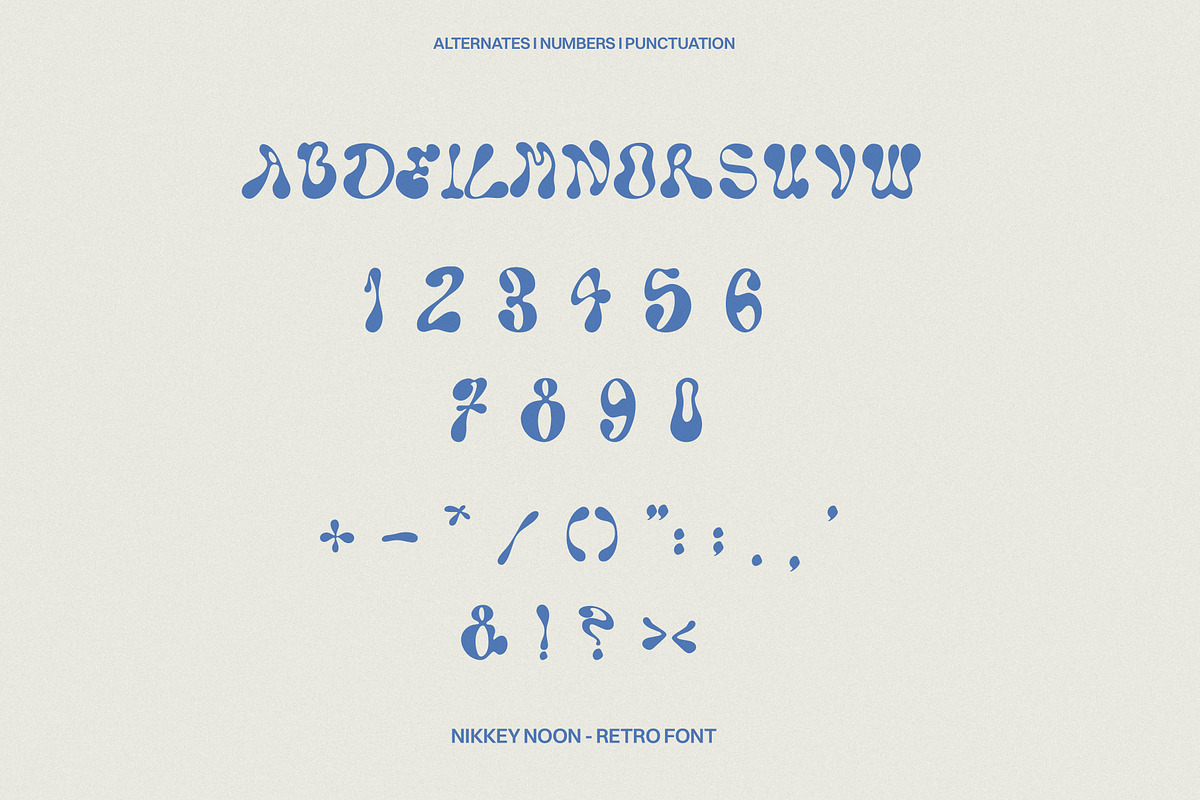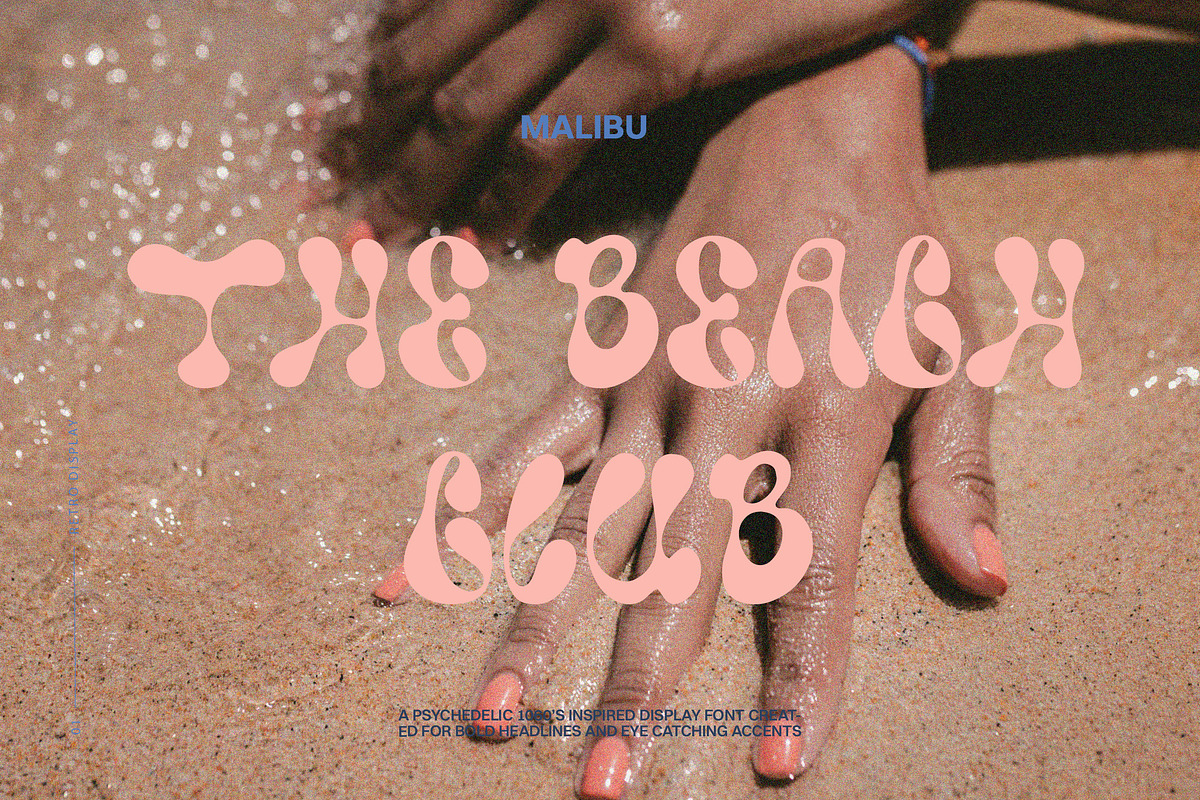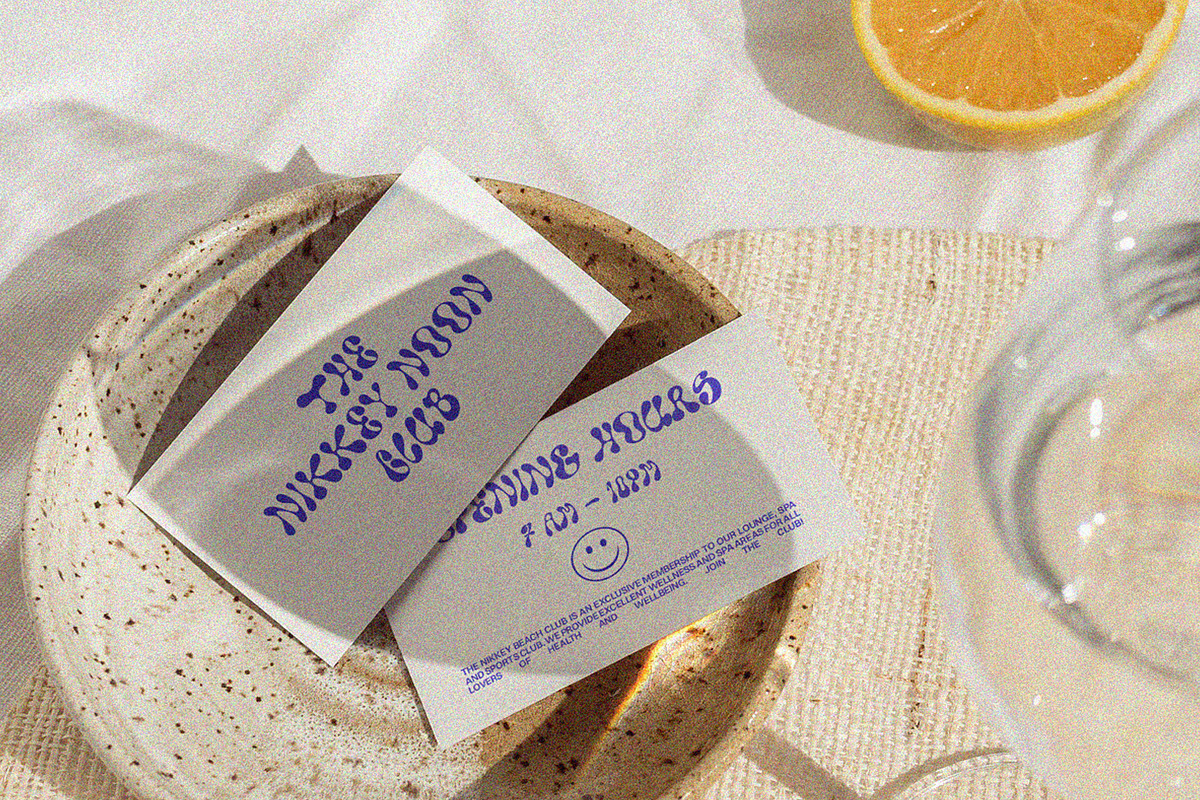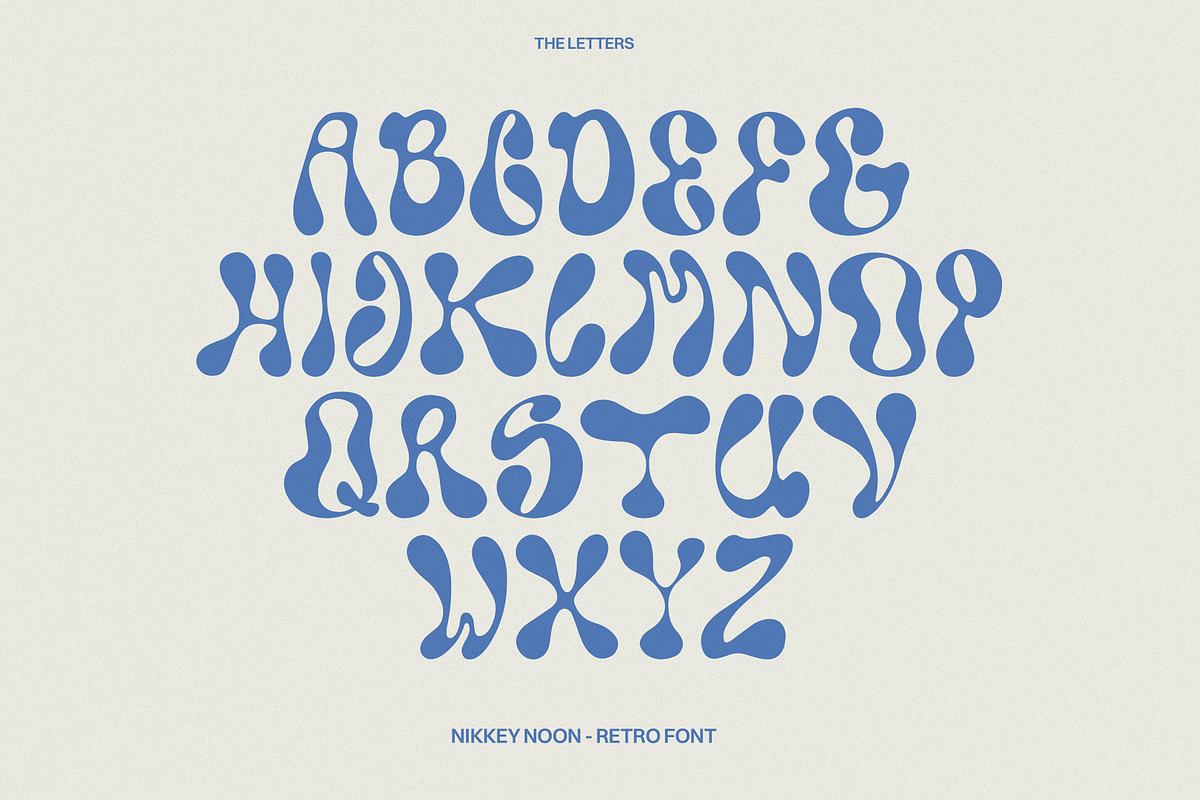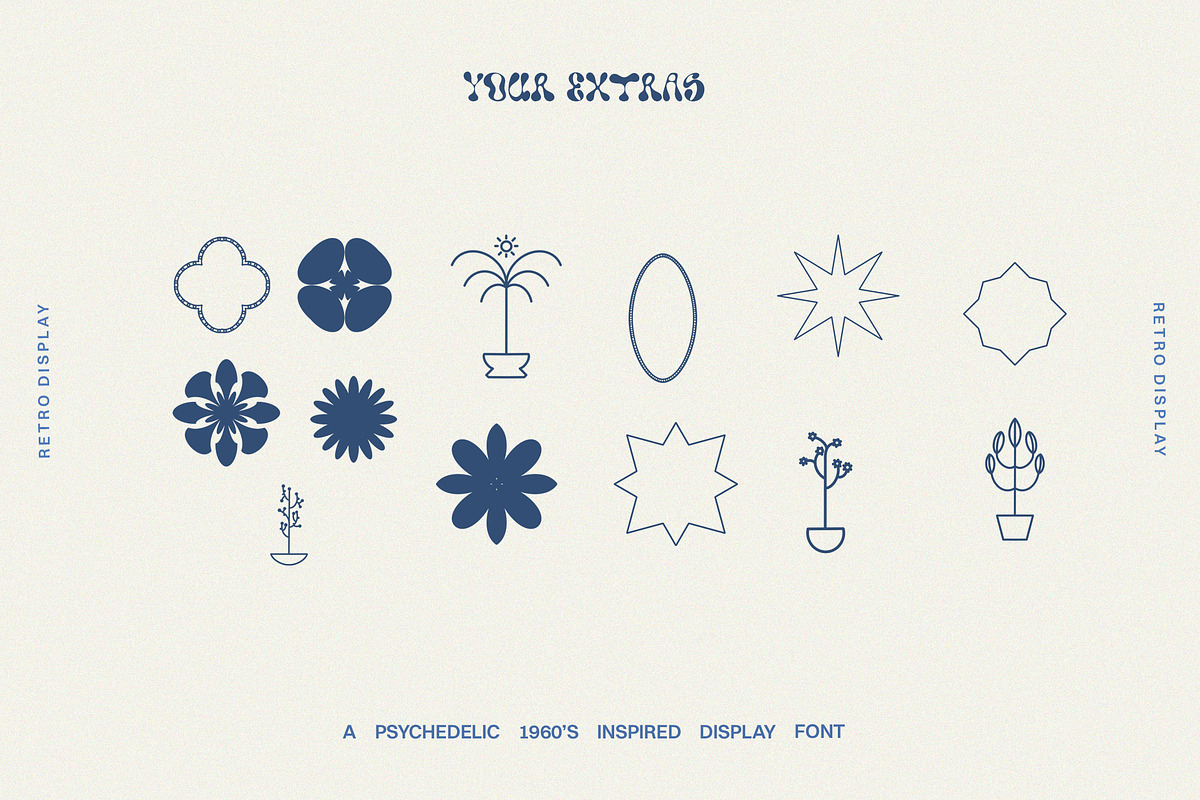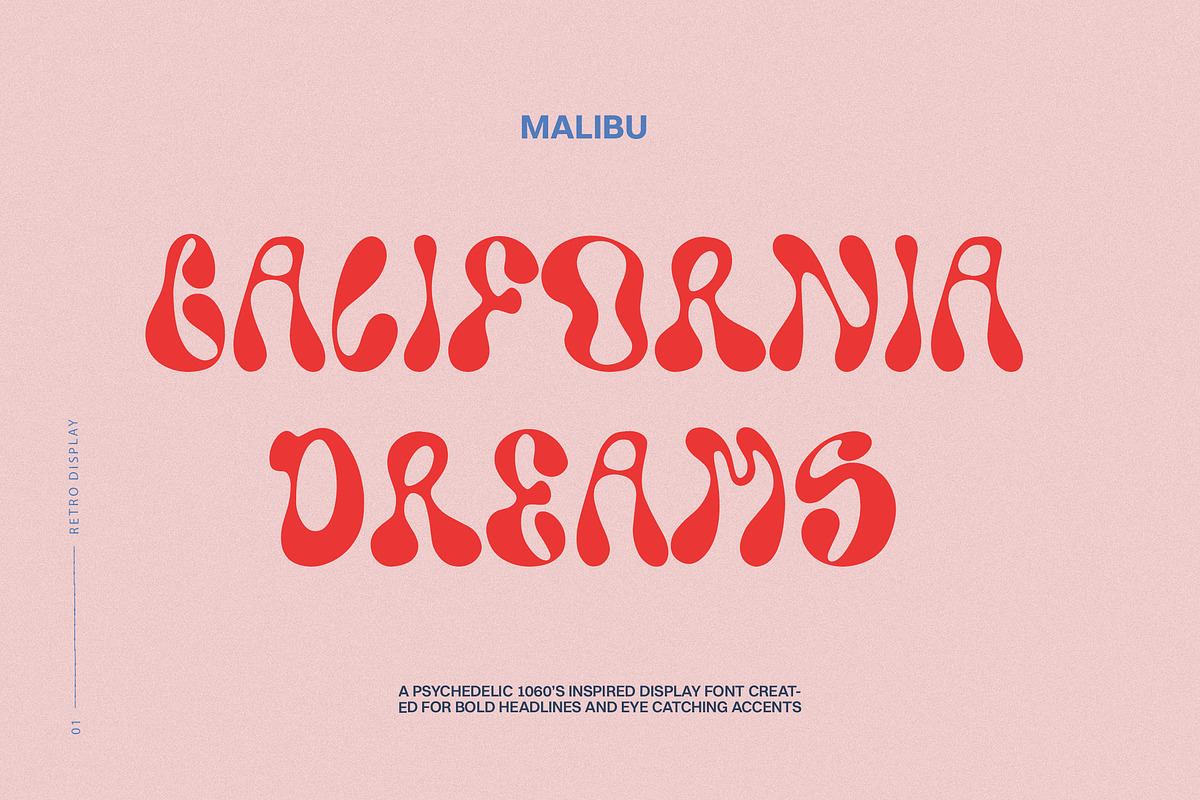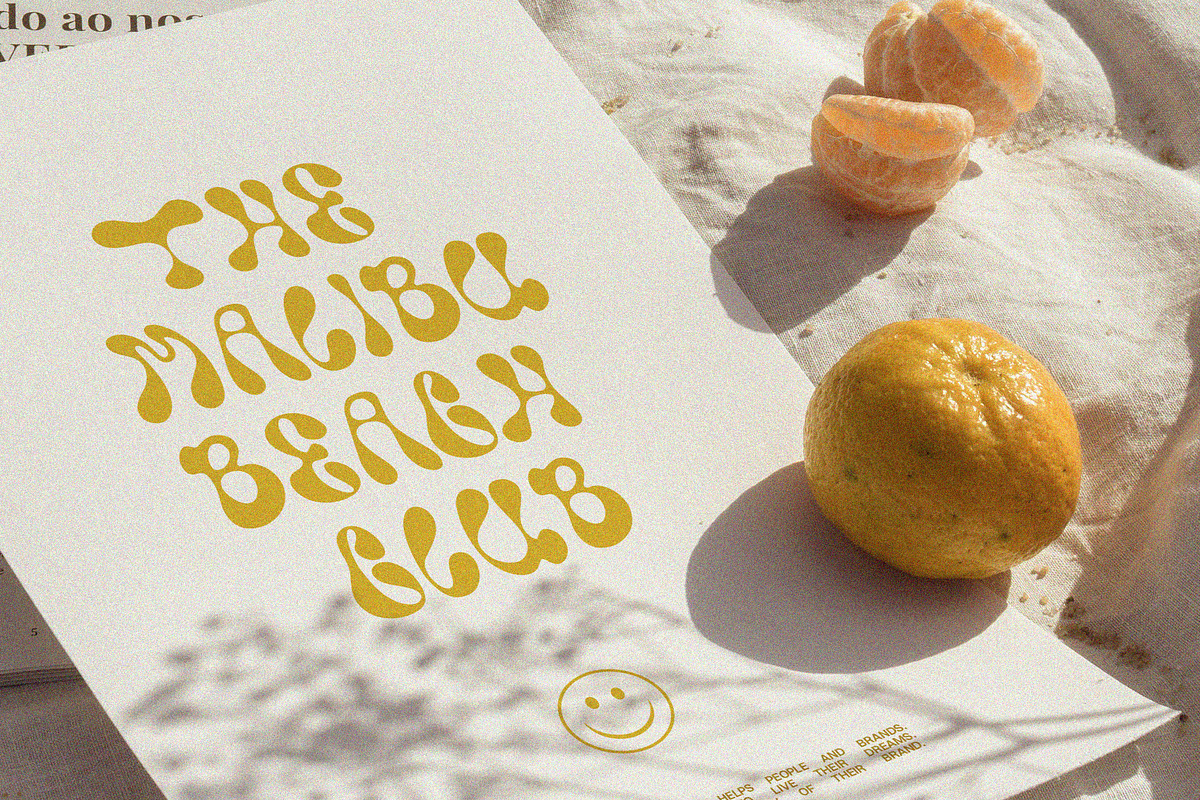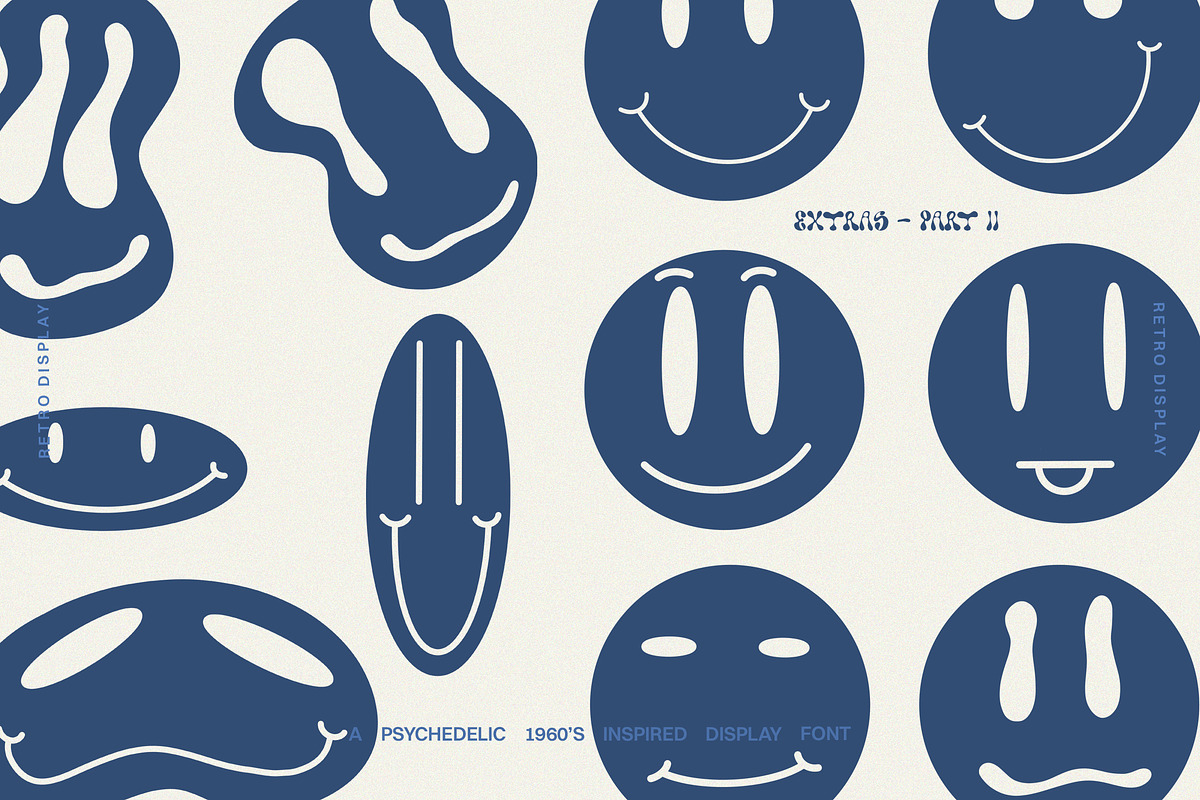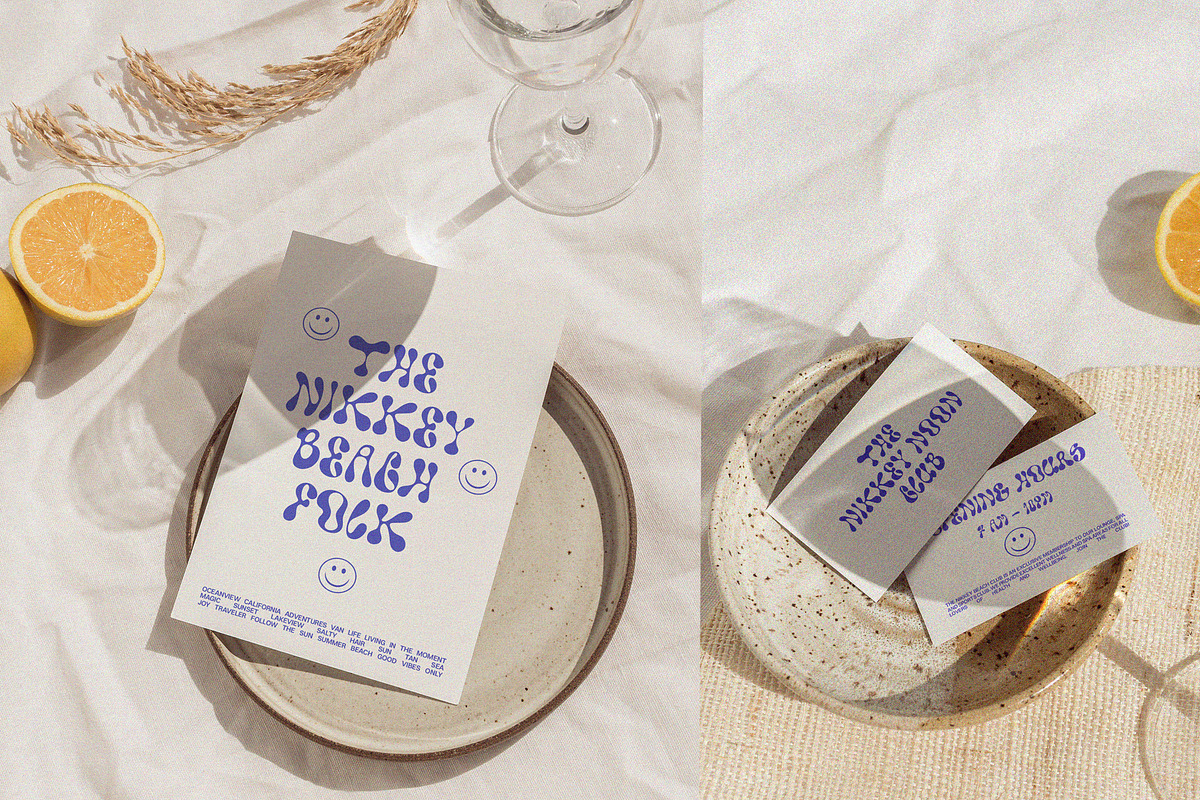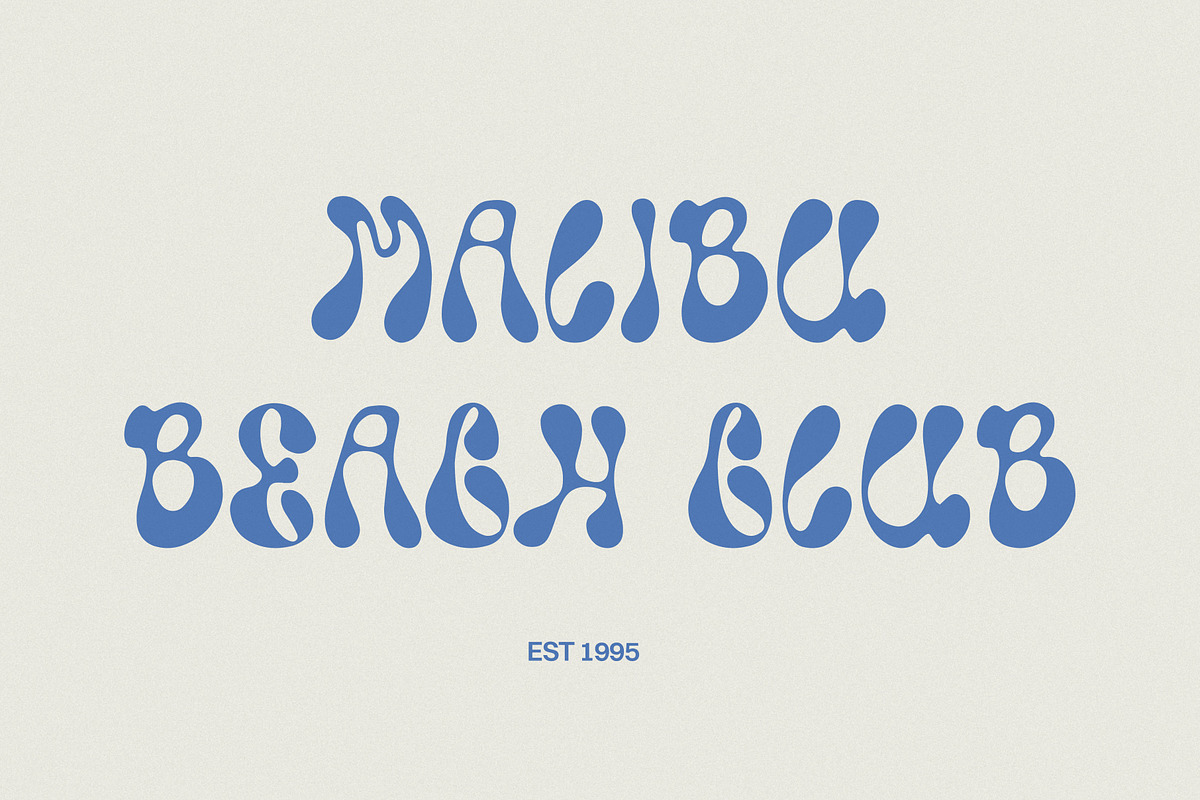
Retro Display Font + Retro Graphics
Nikkey Noon is a fun and light hearted retro display font. Drawn by hand, it is psychedelic, bold and playful, inspired by 60's vibes with influences of the latest 90's font revival. It adds a trend aesthetic to logo designs, headlines or stationery and is perfect to create trending and vibrant accents. Nikkey Noon comes with 25 extras in PNG and vector (Ai.) form. Spruce up your designs using smiley and trending retro graphics!
- including 15 alternates
- 25 hand drawn retro graphics (Ai & PNG)